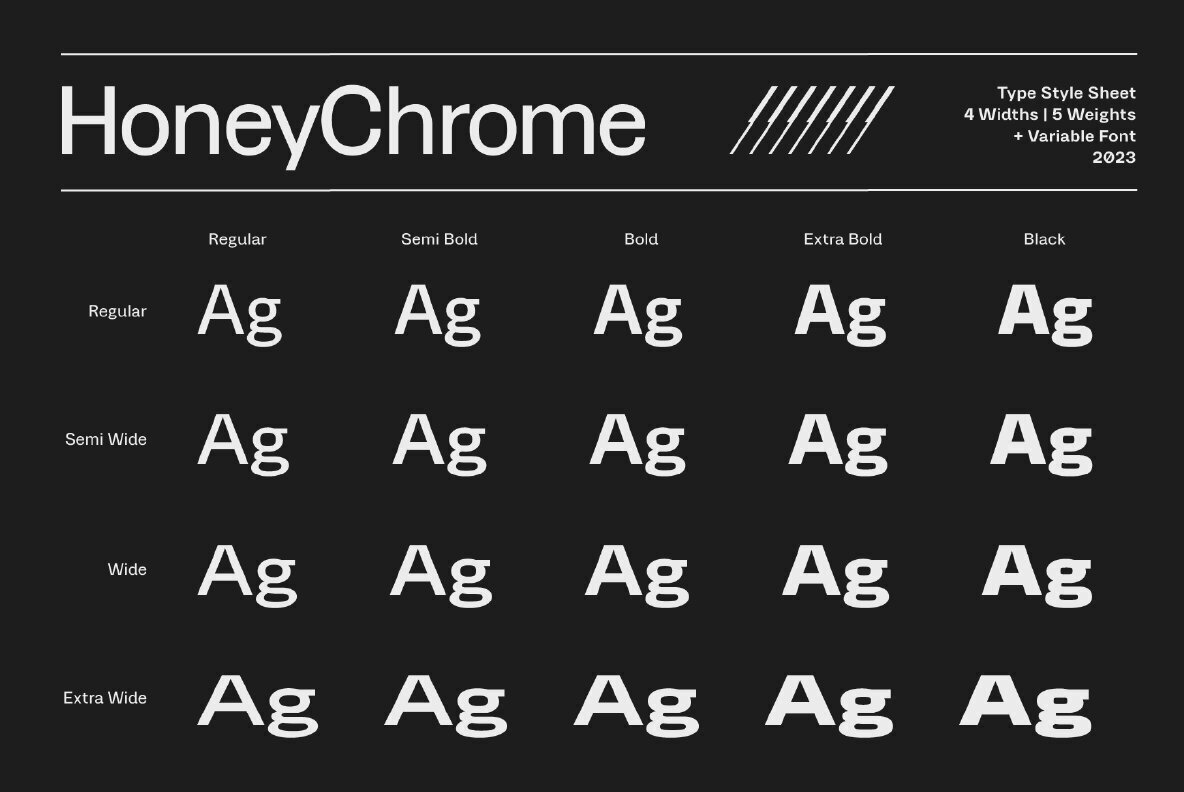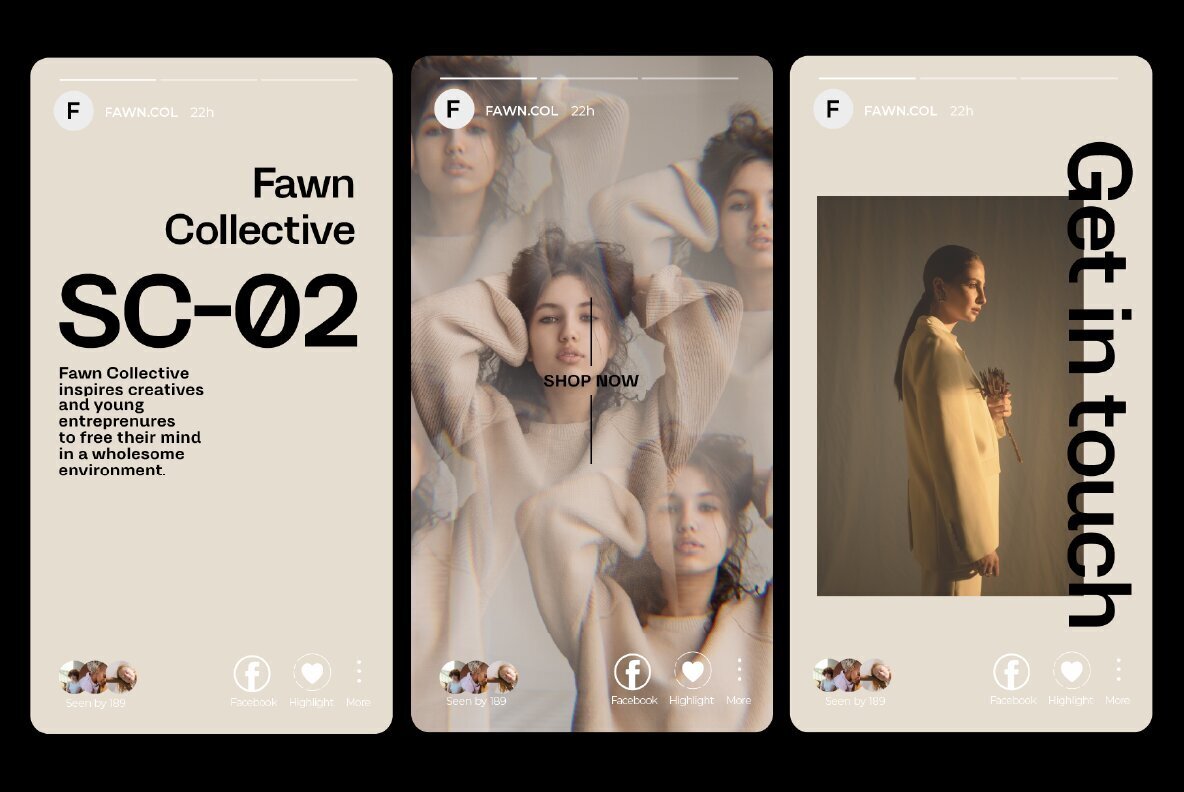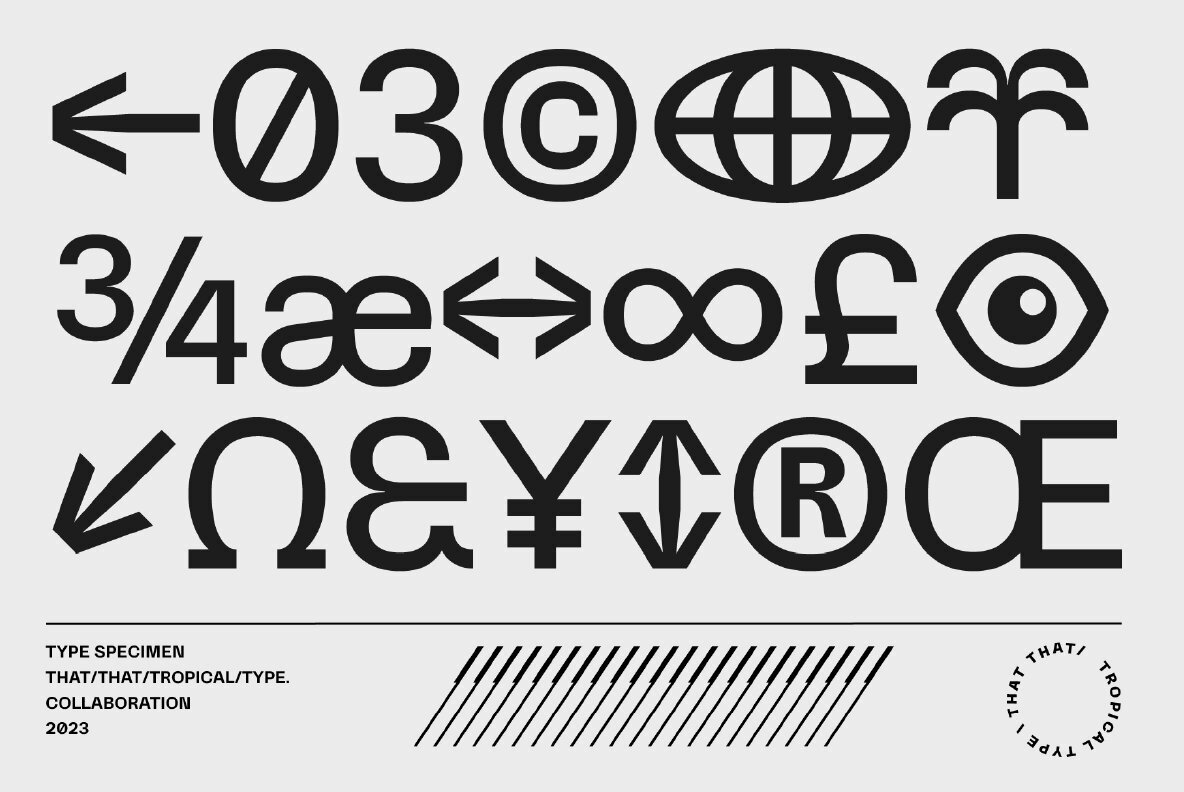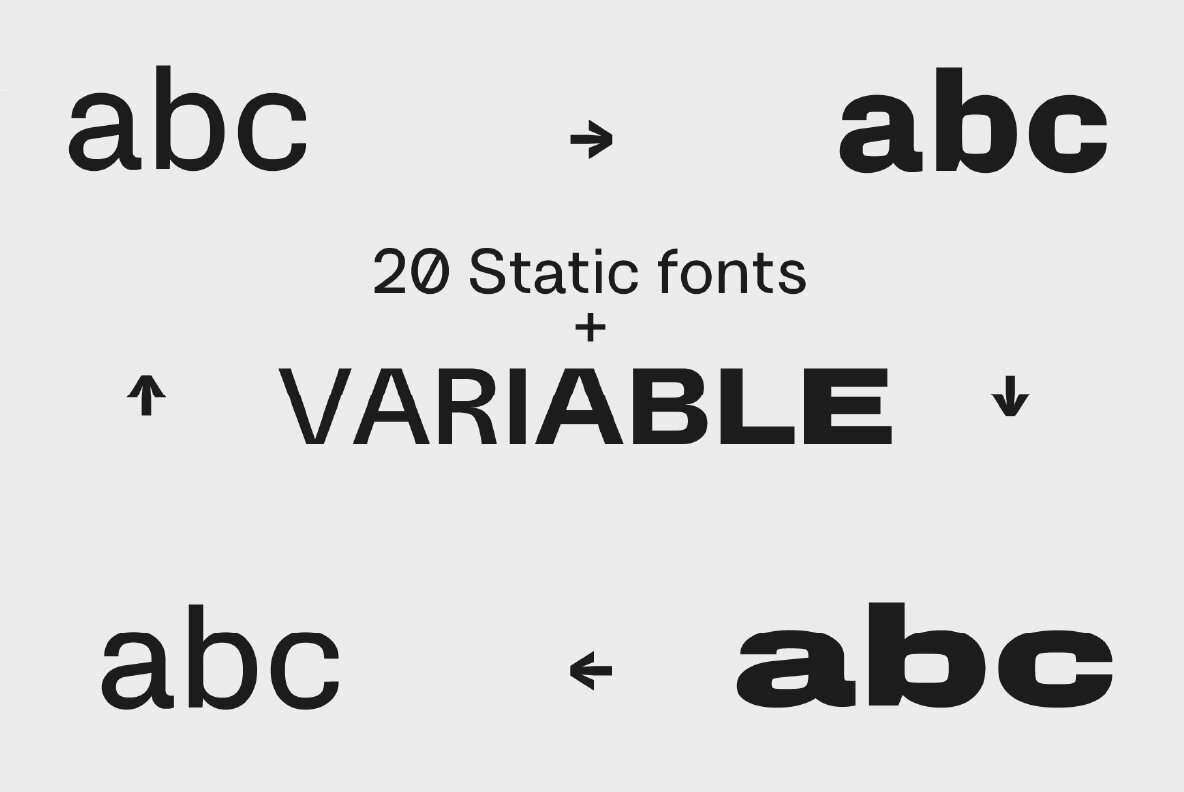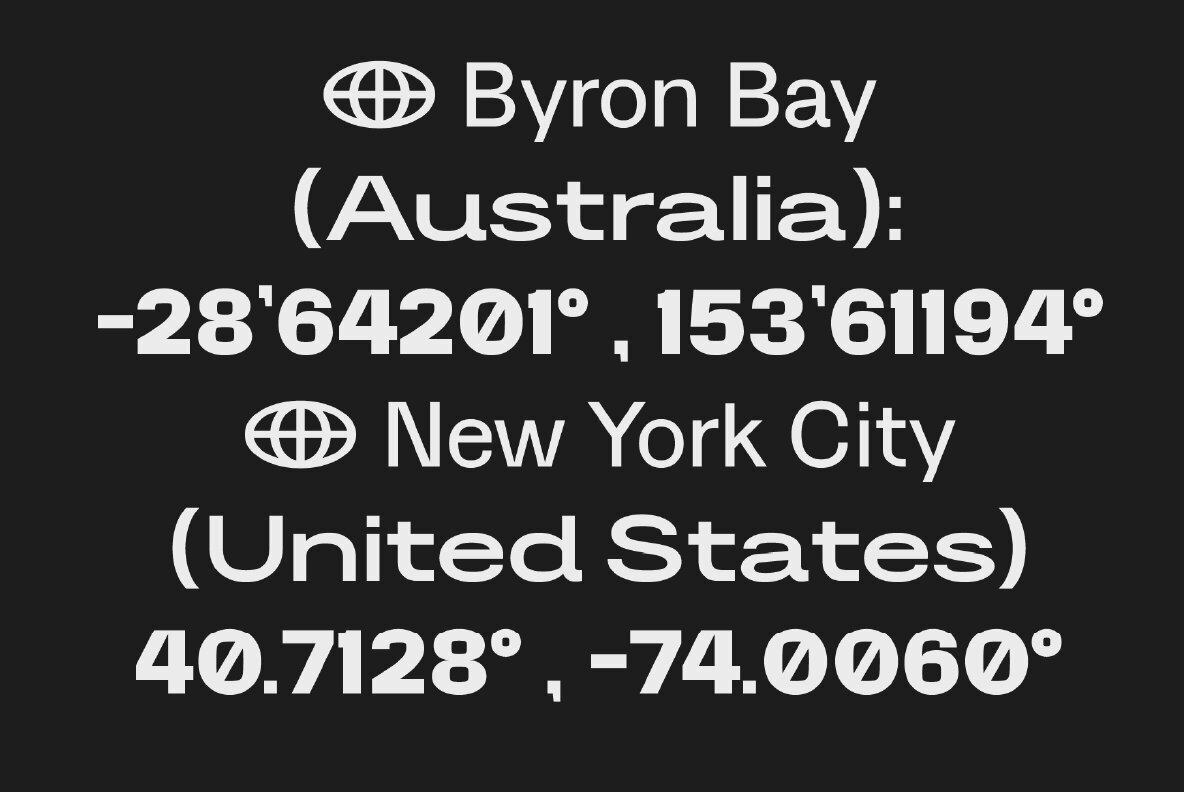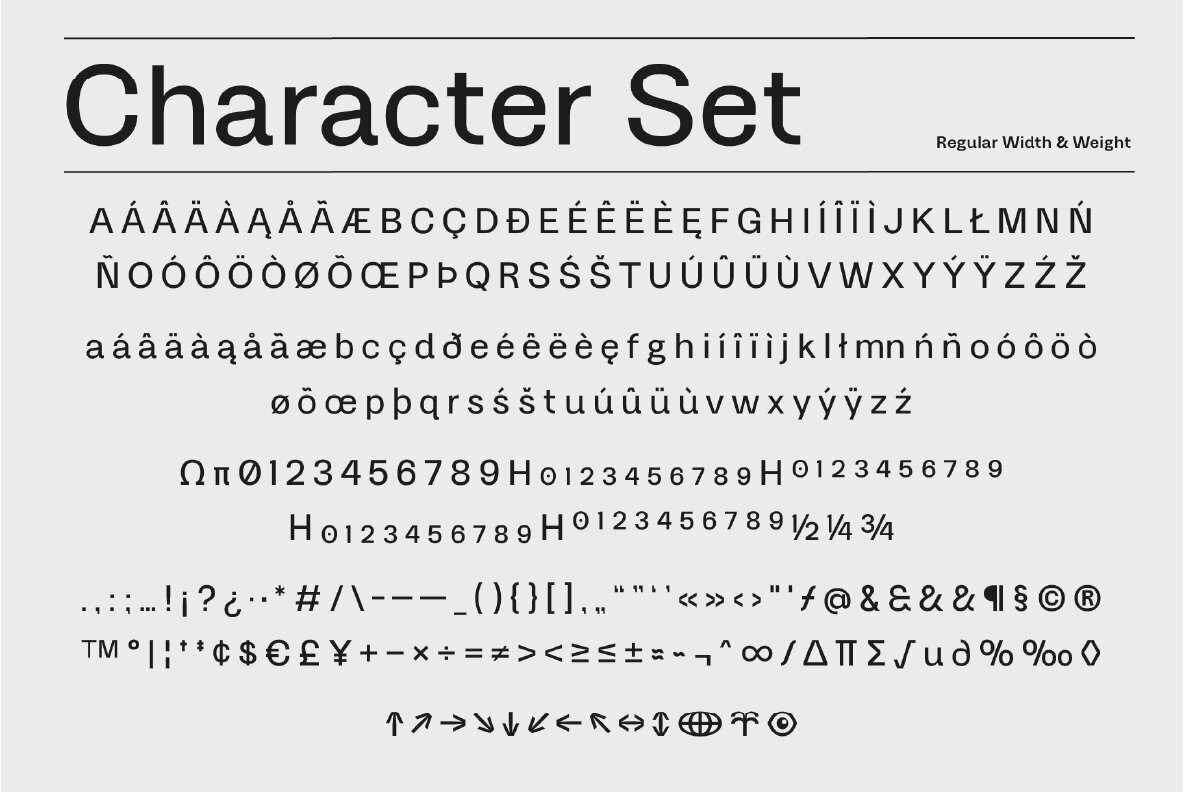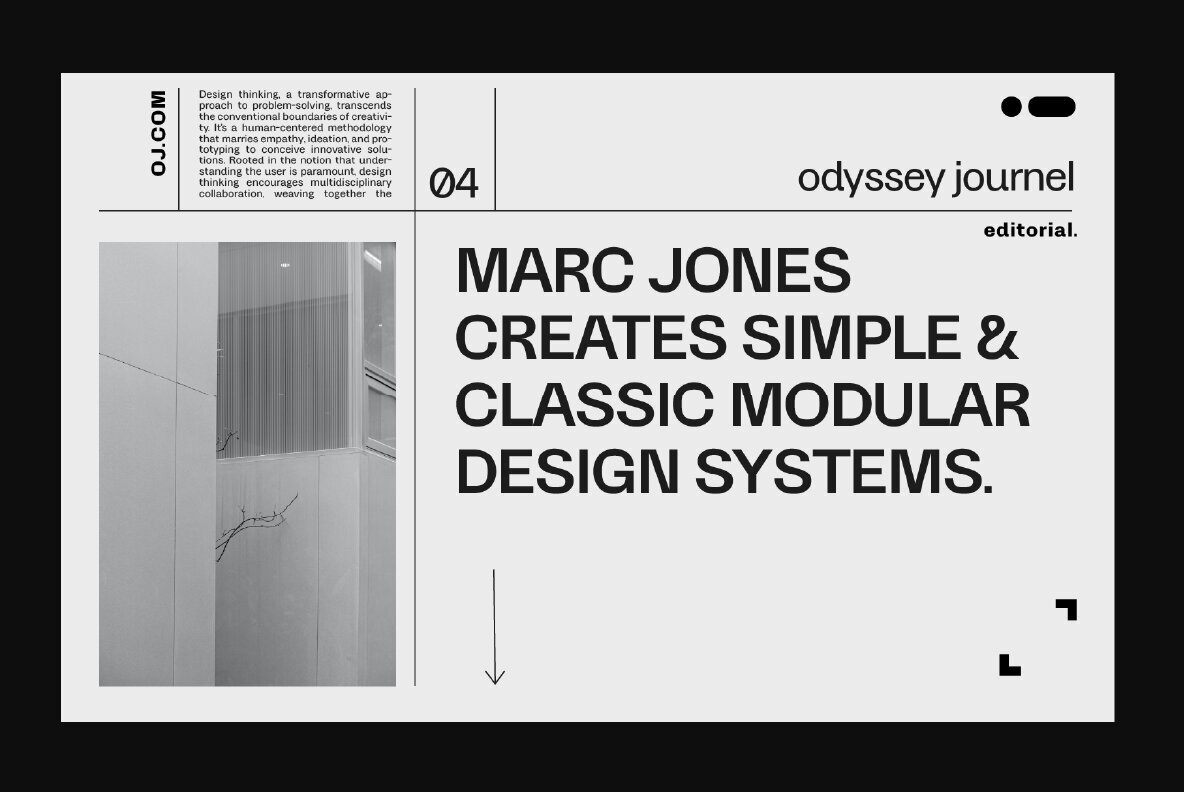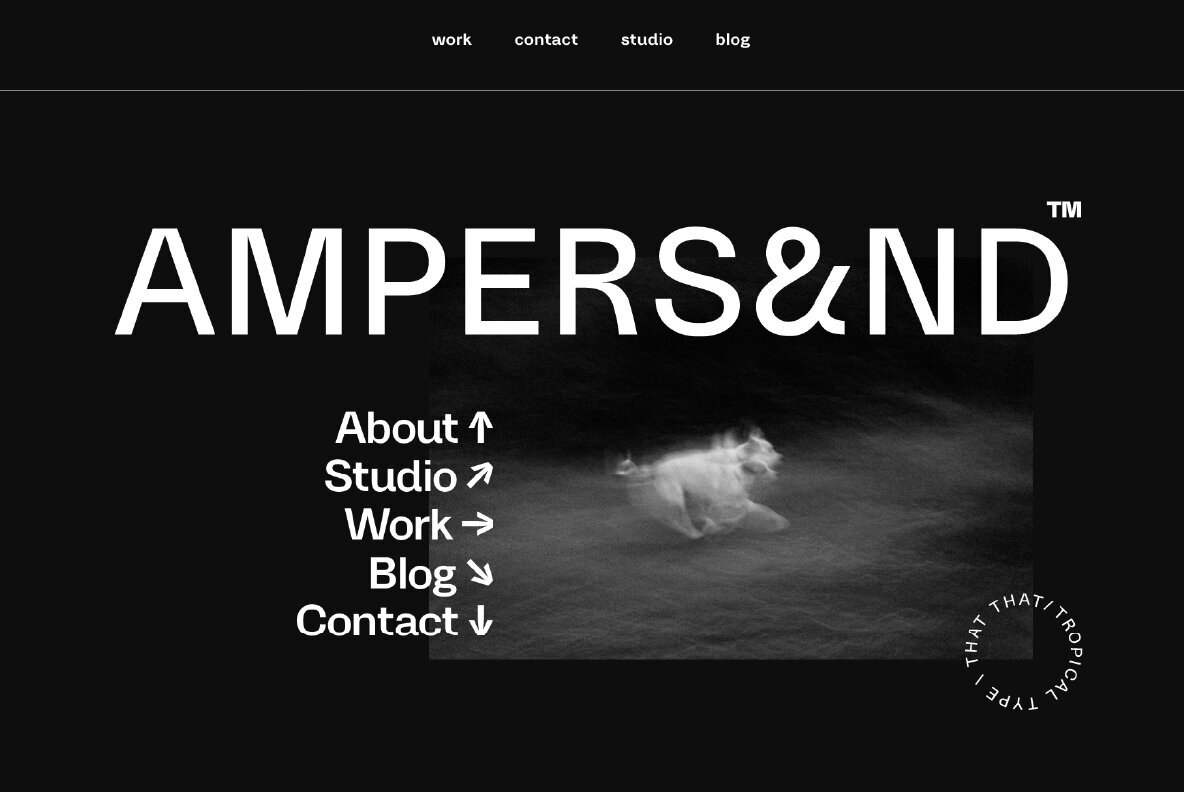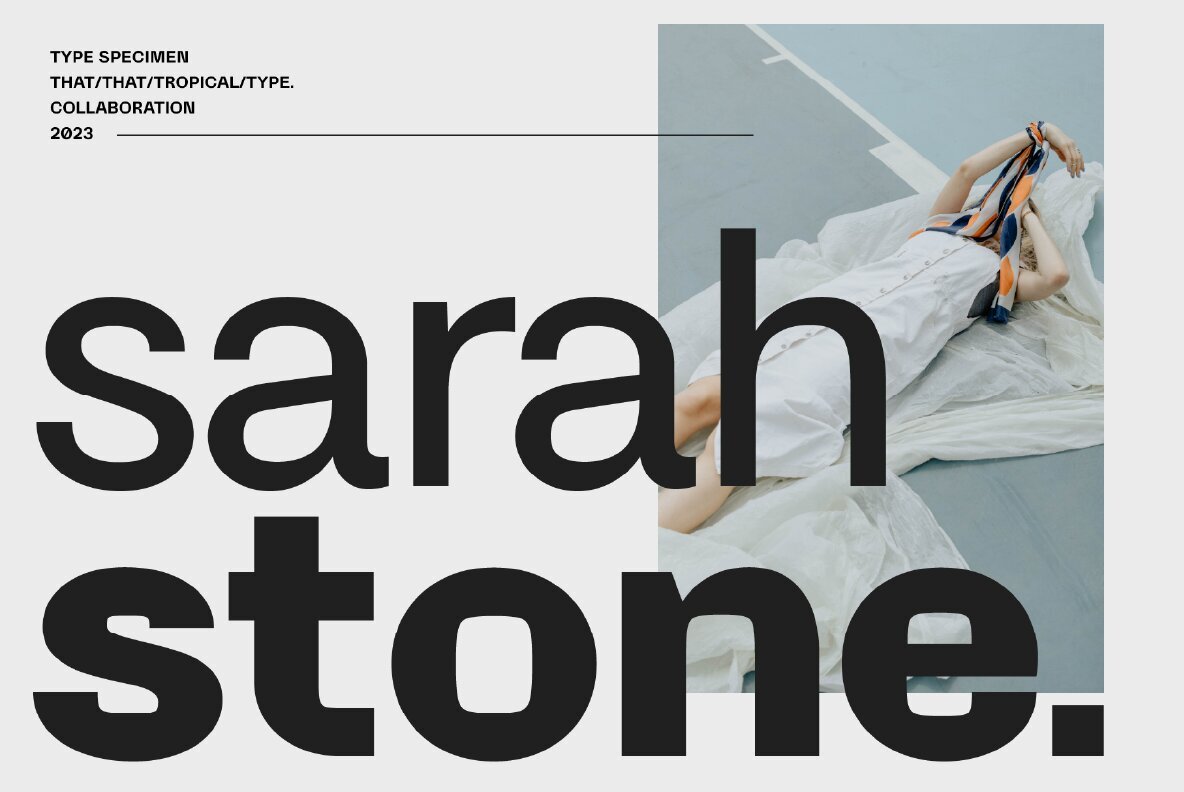
HoneyChrome Font
HoneyChrome is a work horse font with a bit of a human tech flare. It is a sans serif variable font with axis for the weidth and weight so you can dial in the exact style you need. Honeychrome is more reserved at the regular weights and width but has more personality the futher you get on the extreme widths and weights. This font is a cool contemporary clean style that is perfect for editorials, web design, posters, magazines, logos, or branding.